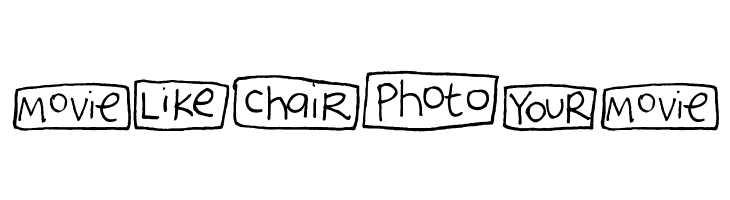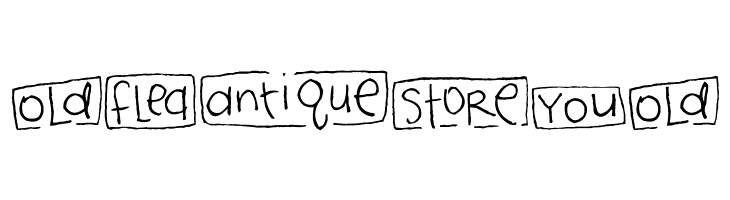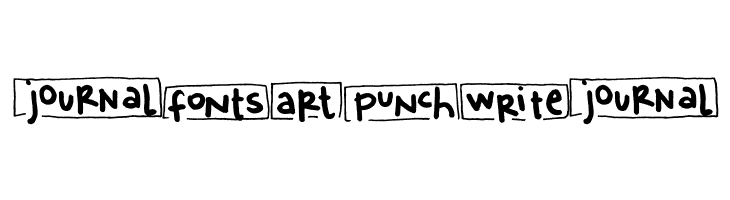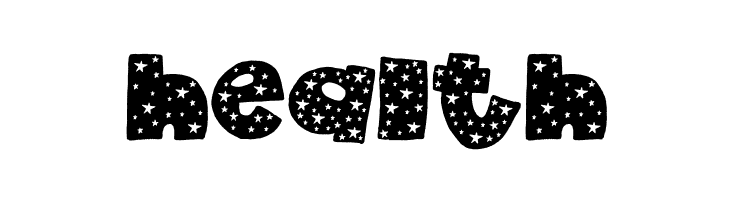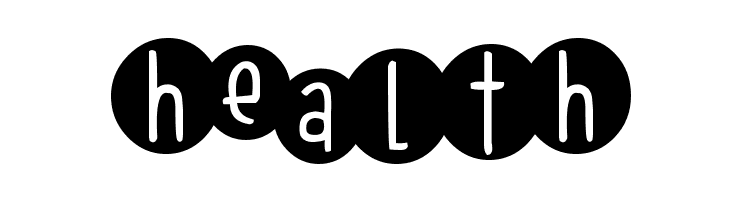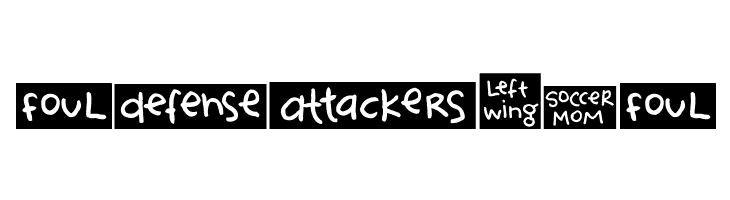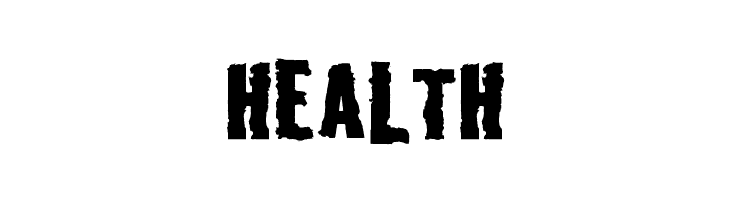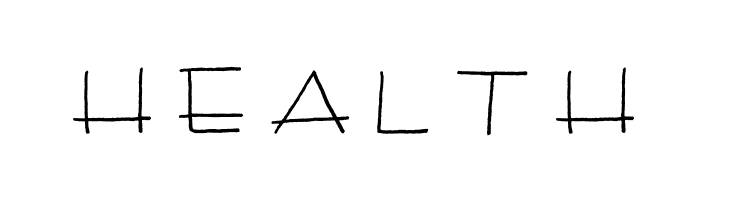
• 2Peas 4th of July
A bold, star-patterned decorative font ideal for festive designs.
• 2Peas Arizona
A playful, handwritten font with thin, irregular strokes and a casual vibe.
• 2Peas Billboard
A bold, distressed font with a rugged, vintage style.
• 2Peas Blocks - Bistro
A playful, blocky font with enclosed characters for a decorative look.
• 2Peas Blocks - Favorites
A playful, blocky font with square, uniform shapes and bold lines.
• 2Peas Blocks - Scrapbooking
A playful block-style font ideal for creative and youthful projects.
• 2Peas Blocks - Soccer
A playful, block-style font with characters enclosed in squares, ideal for fun and informal projects.
• 2Peas Blocks - Vintage Fun
A playful, vintage block-style font with bold, chunky letterforms.
• 2Peas Blocks - Winter
A playful, blocky font with each character enclosed in a square.
• 2Peas Crazy Pooch
A playful and whimsical font with characters in circular shapes.